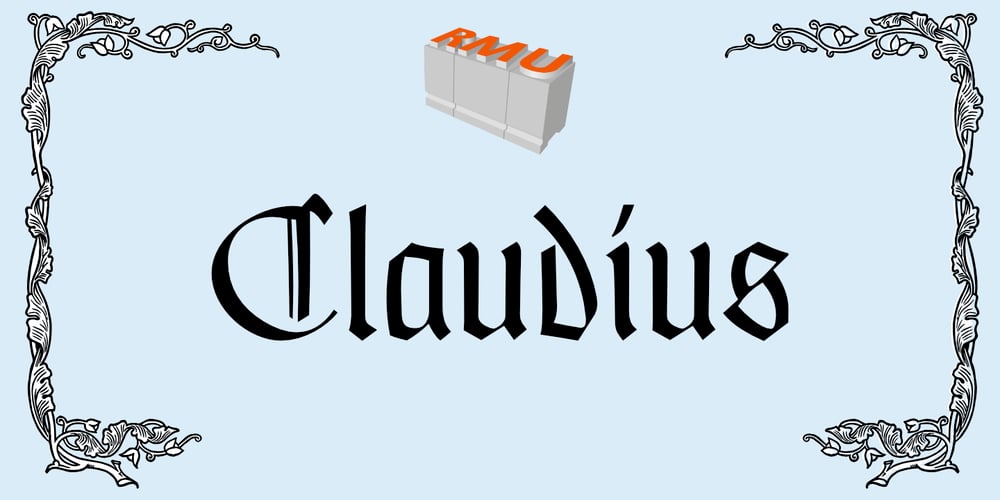
Claudius Font Family was designed by Ralph M. Unger and published by RMU. Claudius contains 1 styles and family package options. A blackletter font tending towards the gothic which was released by Klingspor, Offenbach am Main, in 1937. Claudius can be used for clerical as well as for secular purposes and shows a strong character of its own. The original esthetic atrocities of placing the dieresis within the letters A and O – due to former German industry standards – were abolished. Allow the font’s beauty spread by giving it enough leading between the lines. This font contains various useful ligatures, and by activating the Ordinals feature and typing ‘N’, ‘o’ and period you get an oldstyle numbersign.